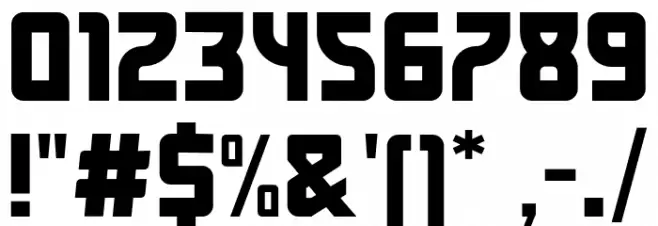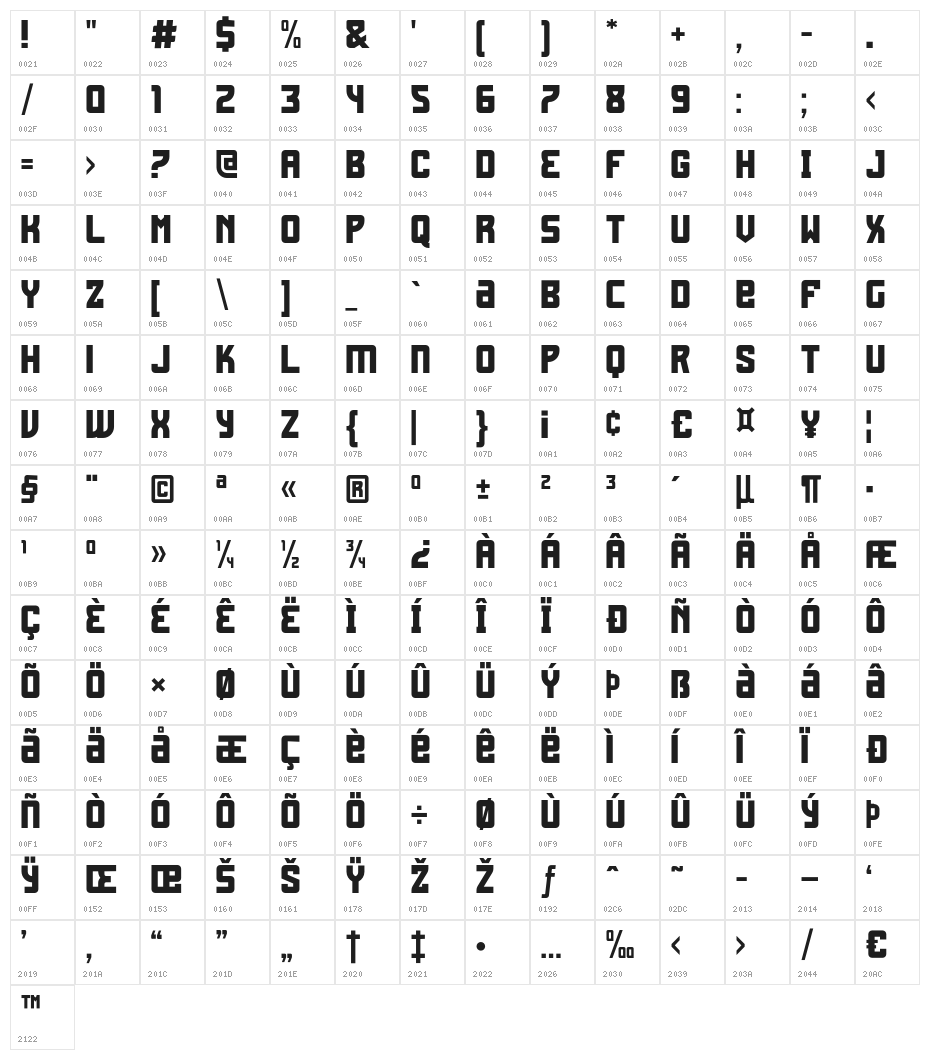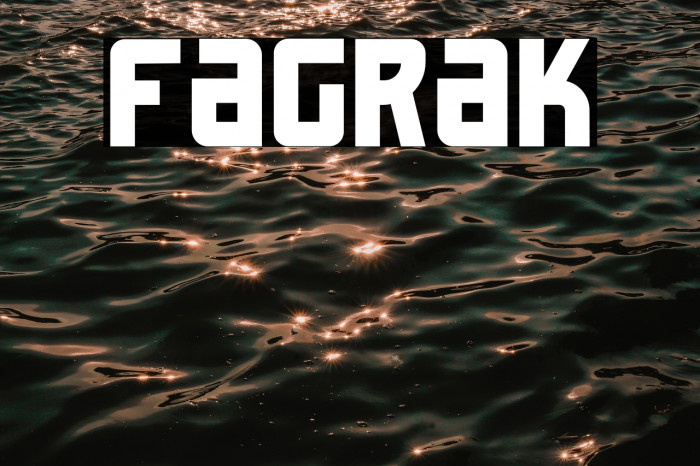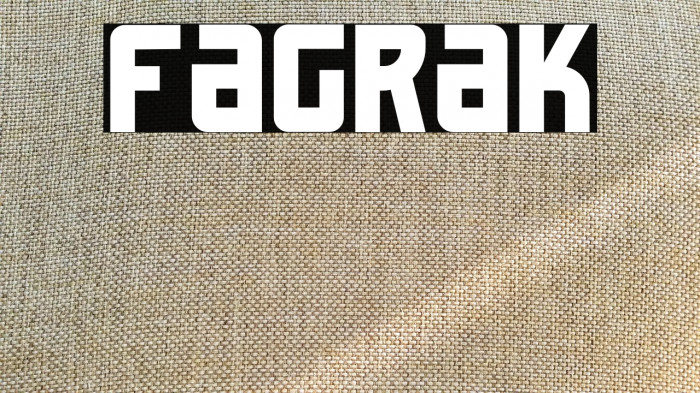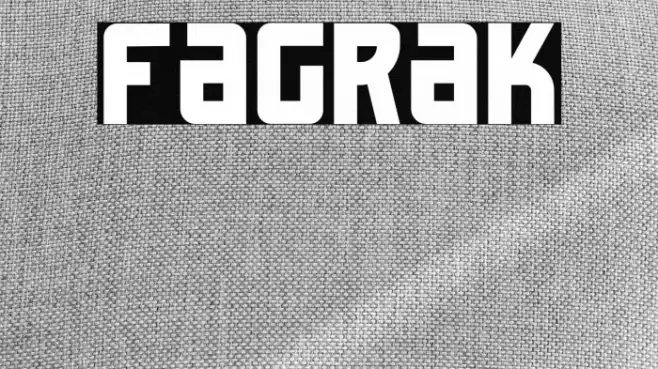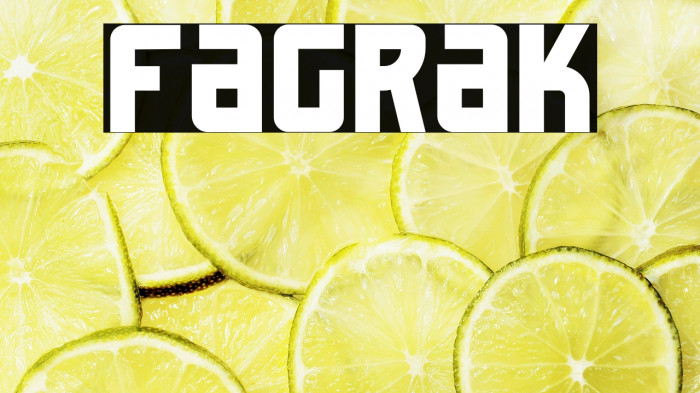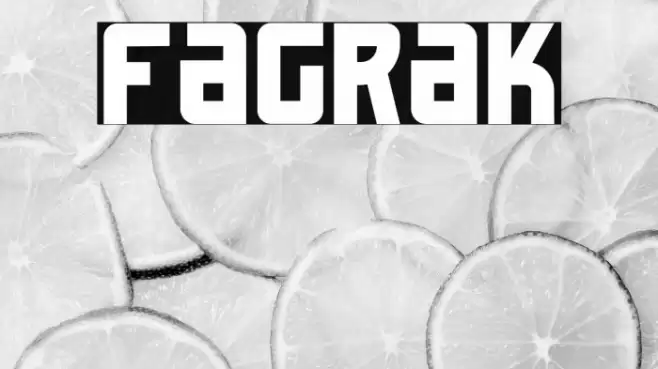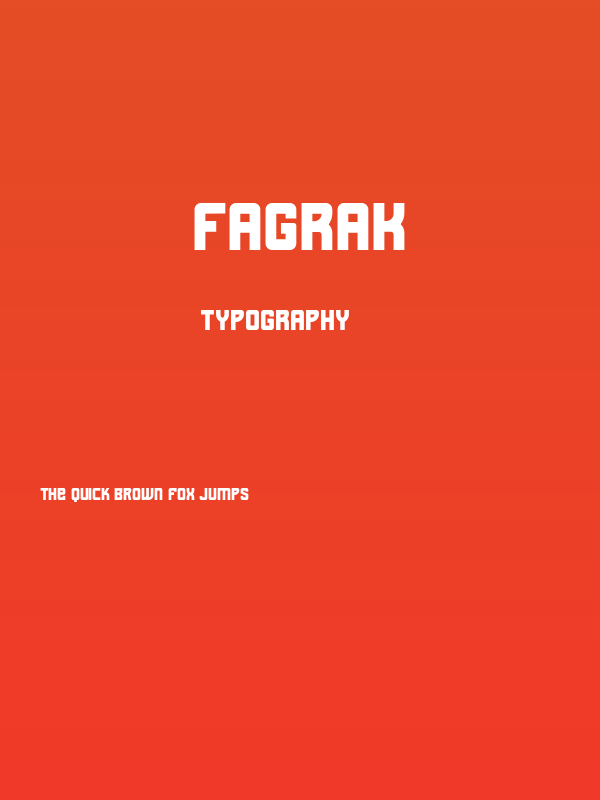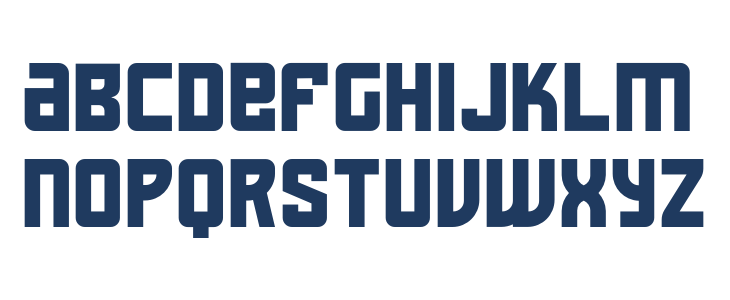
Fagrak Font
Fagrak Description
This font features a bold and geometric design with strong, angular lines and a modern aesthetic. The characters are uniformly thick, giving it a robust and impactful appearance. The uppercase and lowercase letters maintain a consistent style, with sharp edges and a slightly condensed form. The numerals are equally bold, ensuring readability and uniformity across different uses. Special characters are designed to match the overall boldness and geometric style, making this font suitable for attention-grabbing headlines and logos.